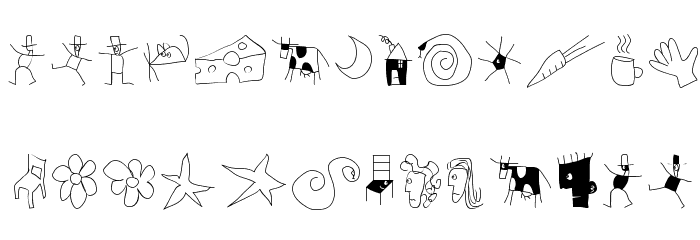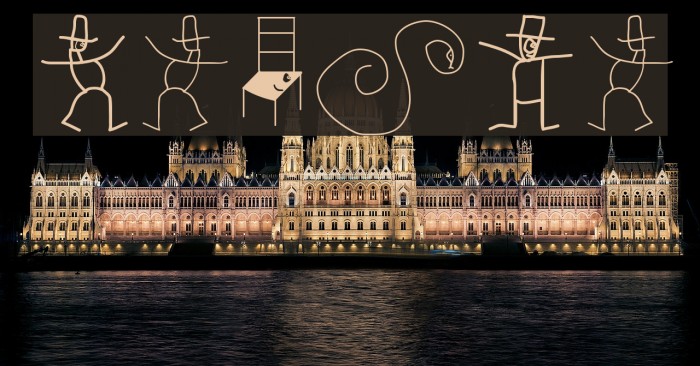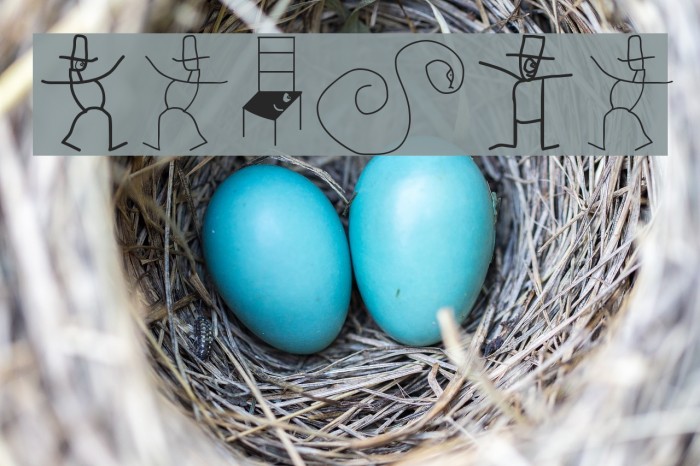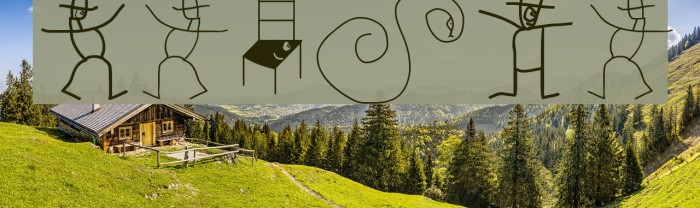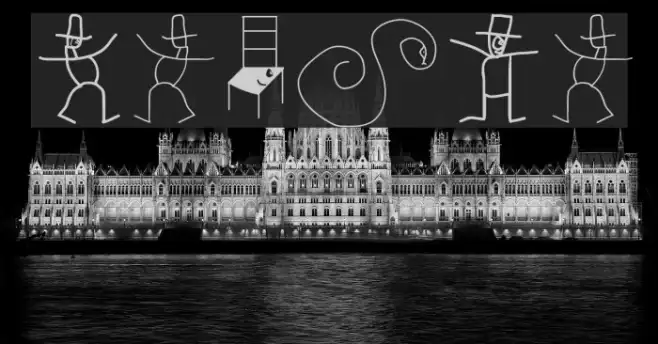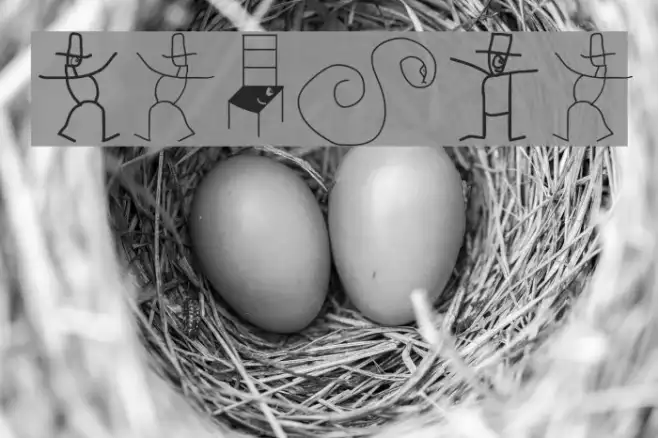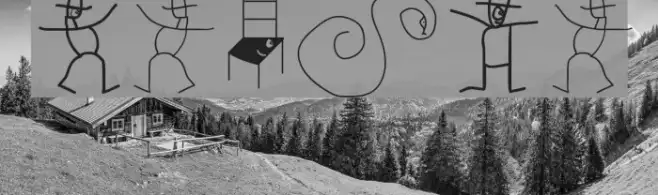
BatsDa Font
This is a whimsical and playful dingbat font featuring a variety of quirky illustrations. Each character is represented by a unique doodle, ranging from abstract shapes to recognizable objects like cheese, cows, and stars. The style is hand-drawn with a casual, sketch-like quality, giving it a fun and informal appearance. The illustrations are simple yet expressive, making them suitable for creative and artistic projects. The font lacks traditional letterforms, focusing instead on visual storytelling through its eclectic mix of icons.
A playful dingbat font with quirky, hand-drawn illustrations.
- Proposed Projects: Ideal for creative projects such as children's books, greeting cards, scrapbooking, and artistic posters.
- Overall Style: Whimsical
- Use Case: Decorative elements, Artistic designs